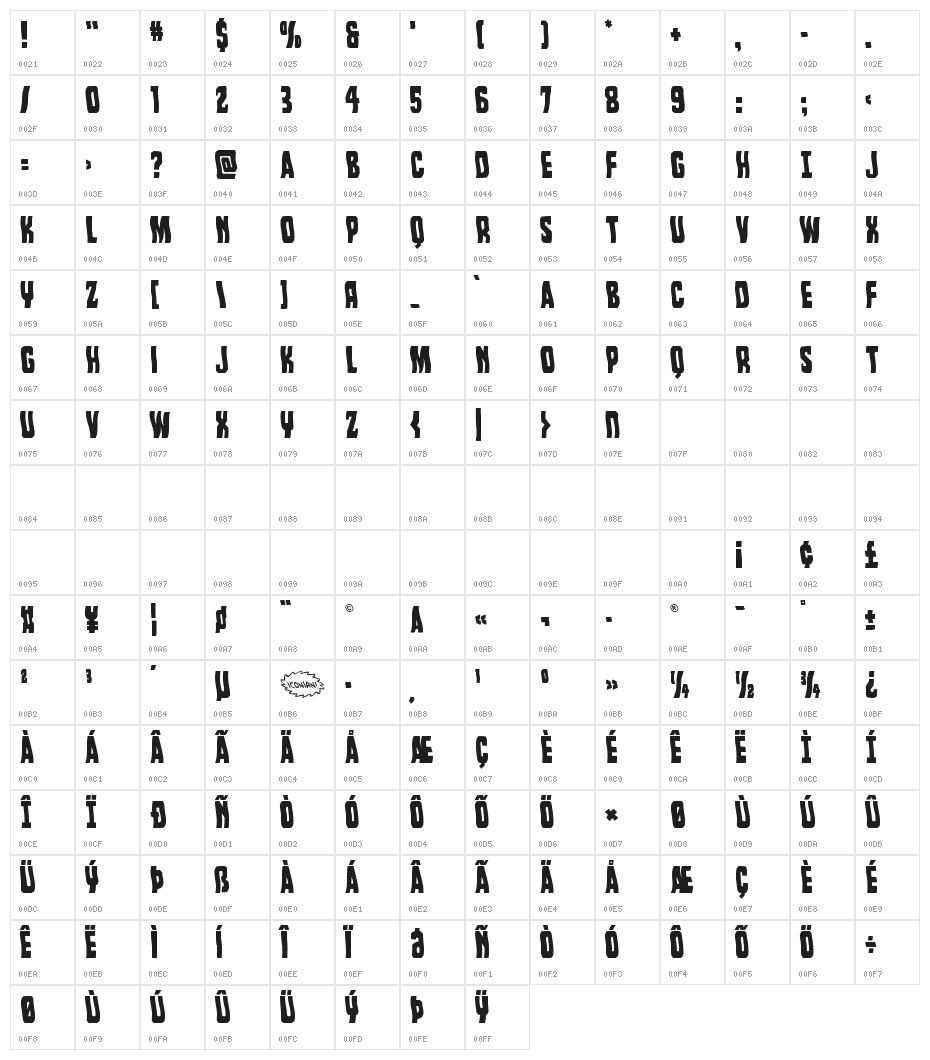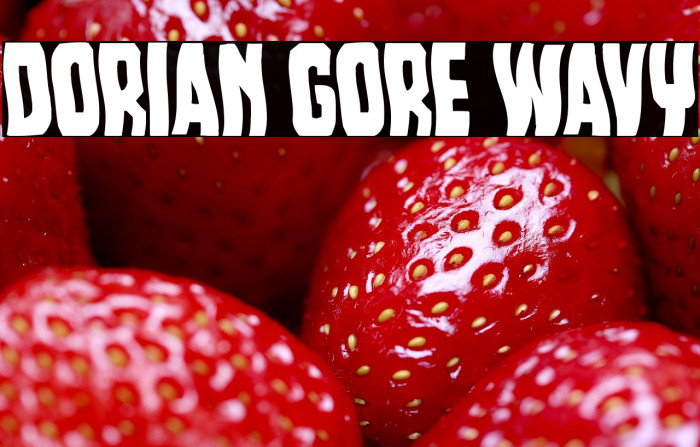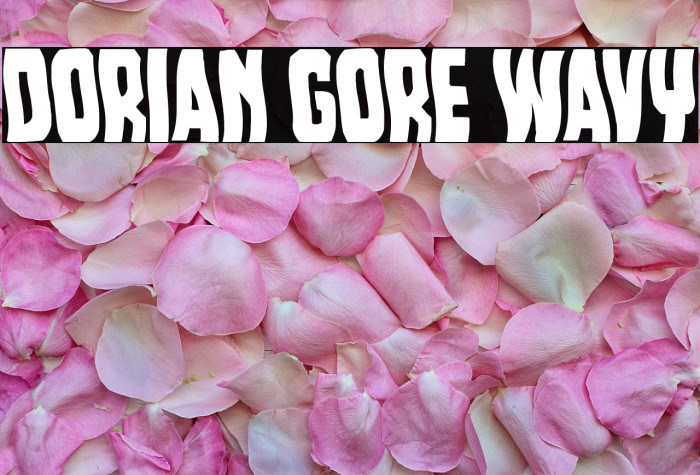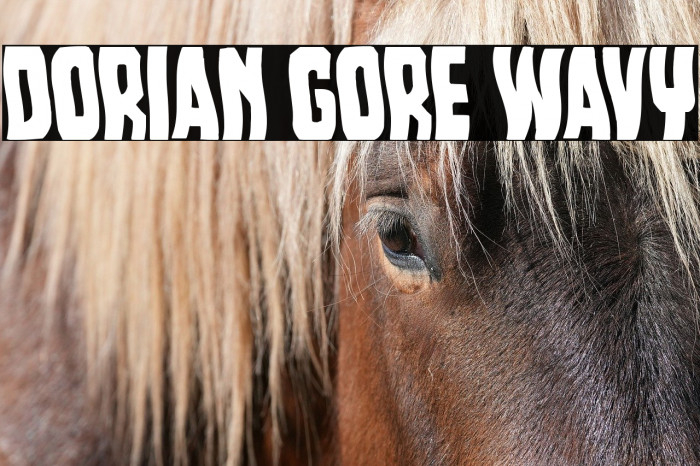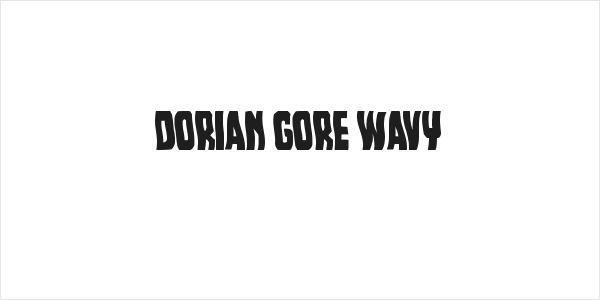
Dorian Gore Wavy Font
Dorian Gore Wavy Description
This font features a bold and wavy design that gives it a unique and eye-catching appearance. The characters are heavily stylized with a playful, distorted look, making them stand out in any design. The uppercase and lowercase letters maintain a consistent style, with exaggerated curves and angles that create a sense of movement. The numbers and special characters follow the same wavy pattern, ensuring uniformity across all glyphs. This font is perfect for projects that require a bold statement and a touch of creativity.
| Proposed Projects | Ideal for posters, album covers, branding, and any project needing a bold, creative touch. |